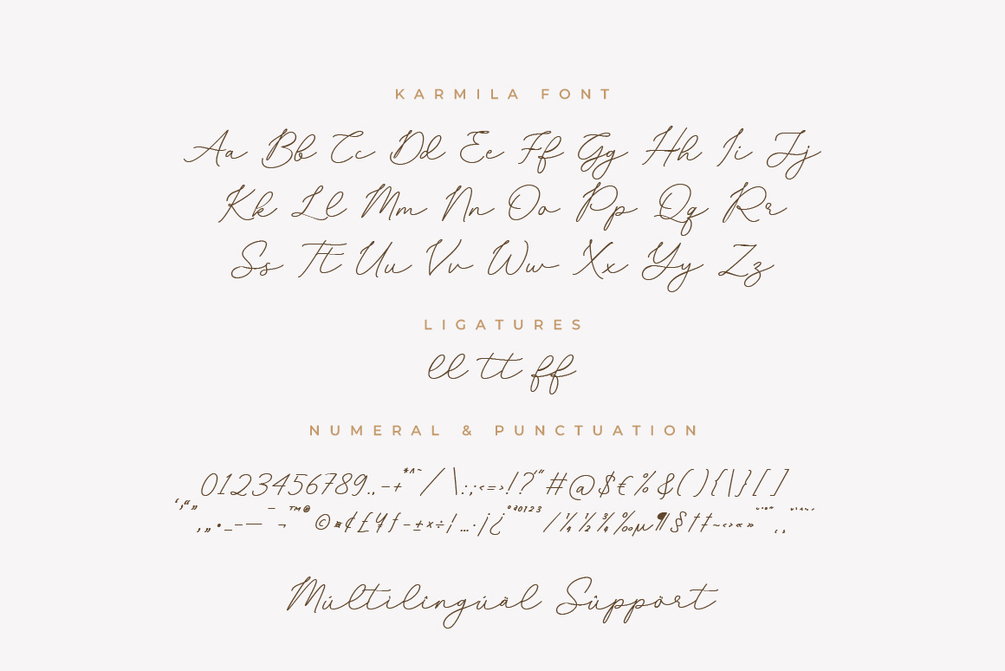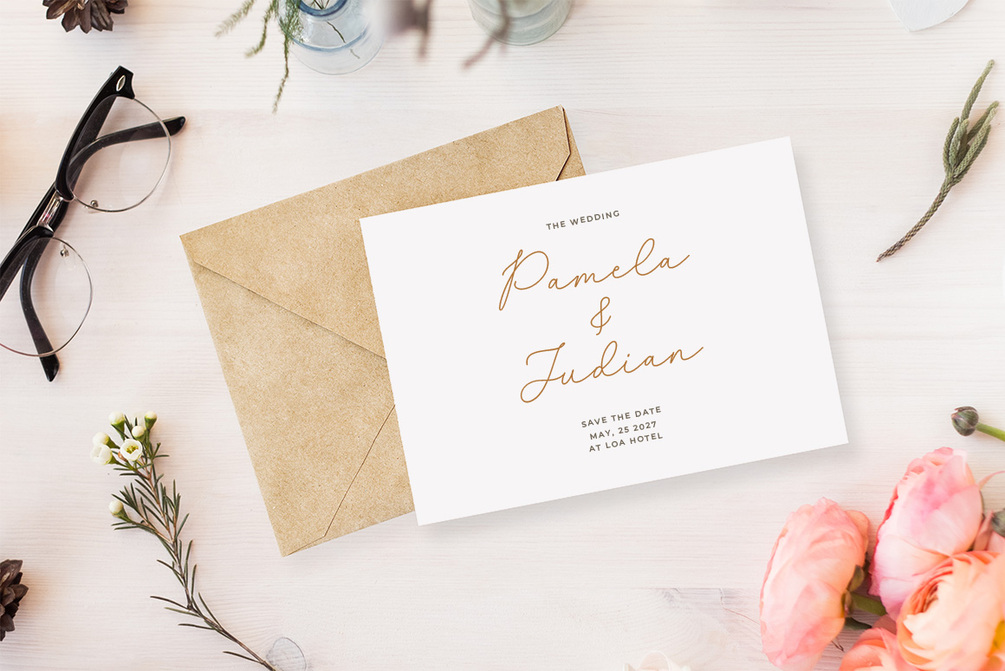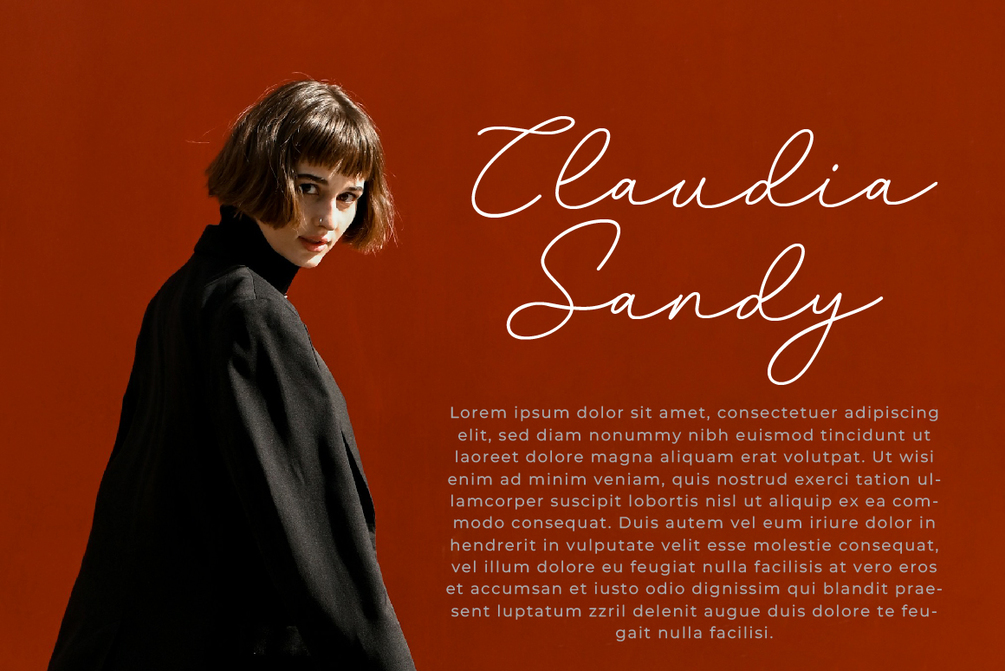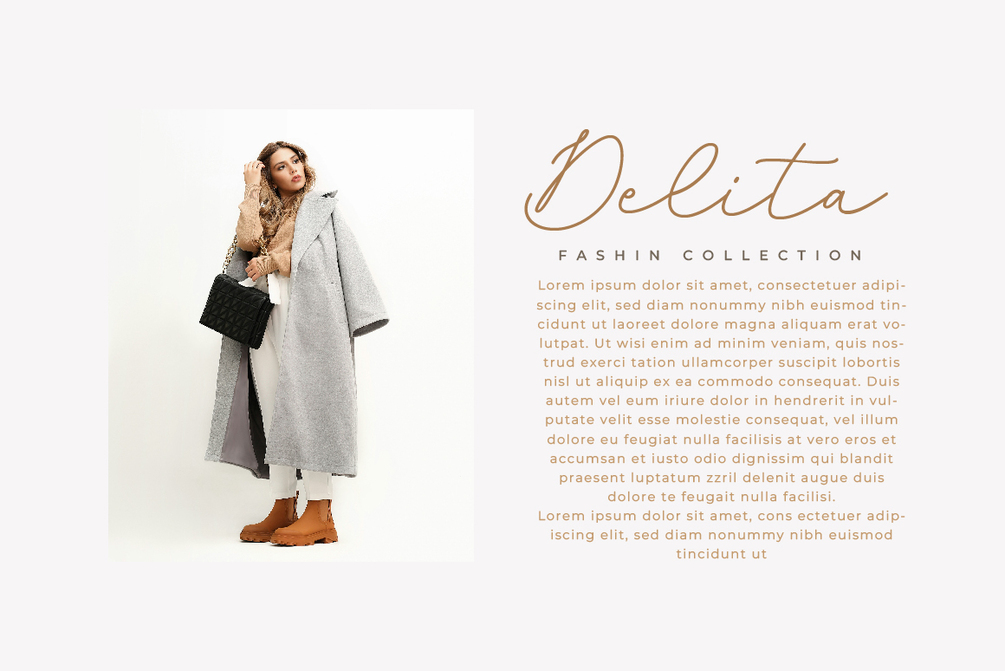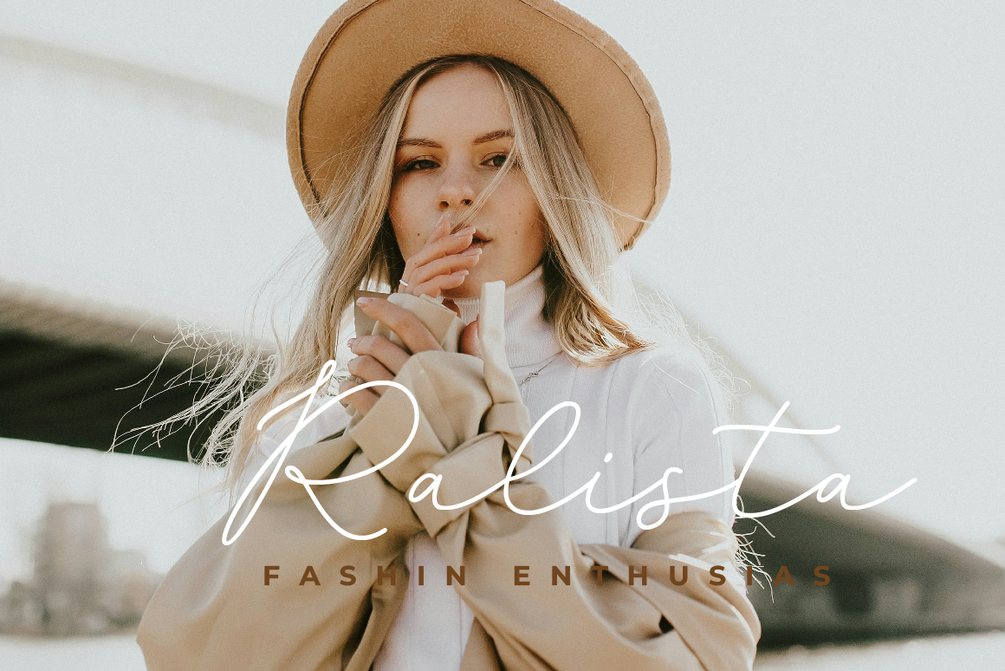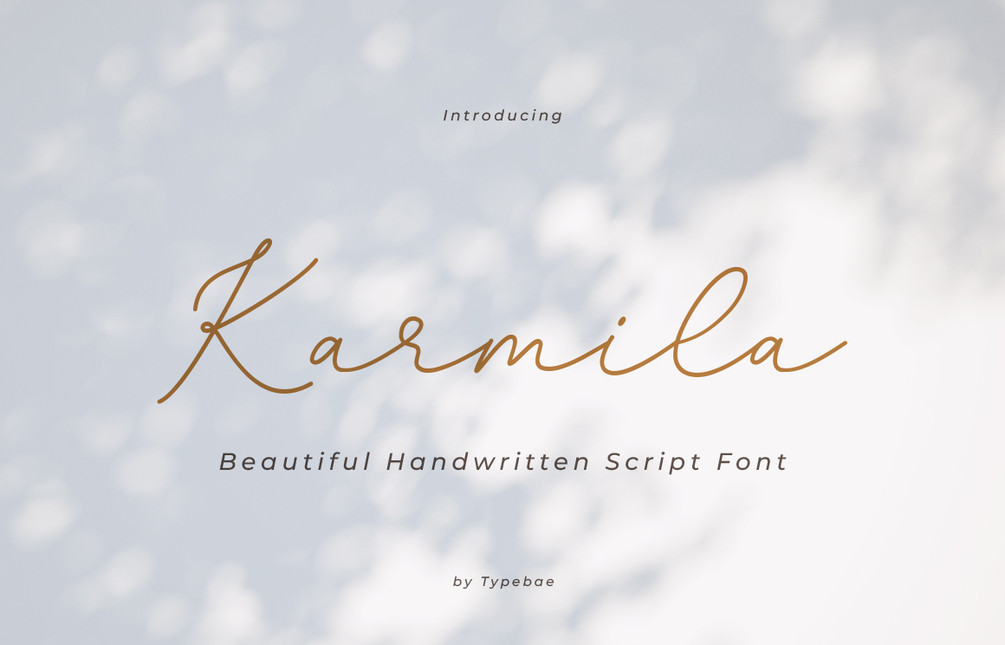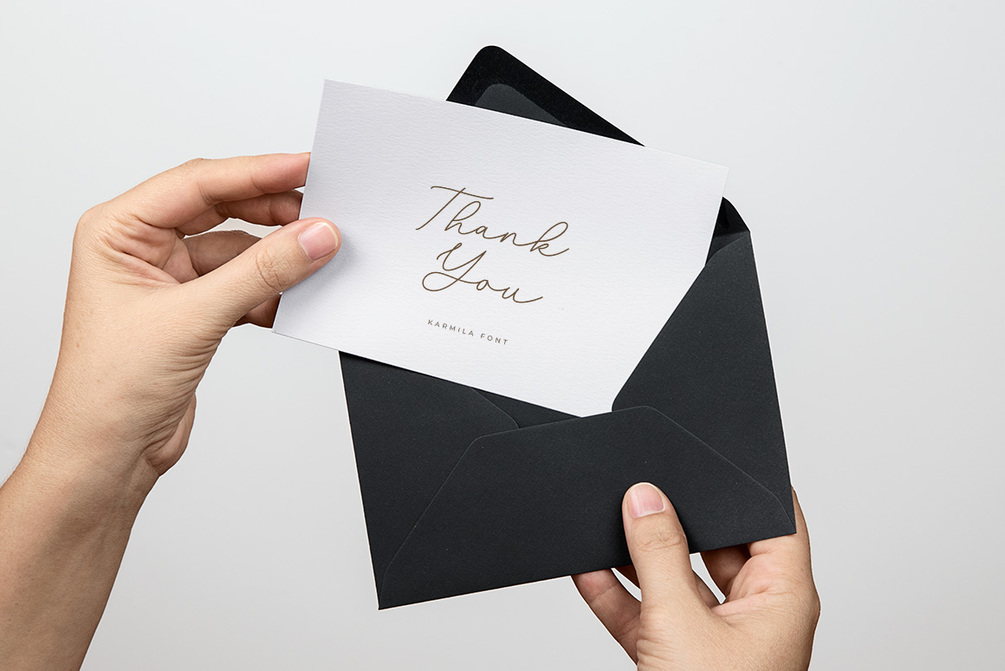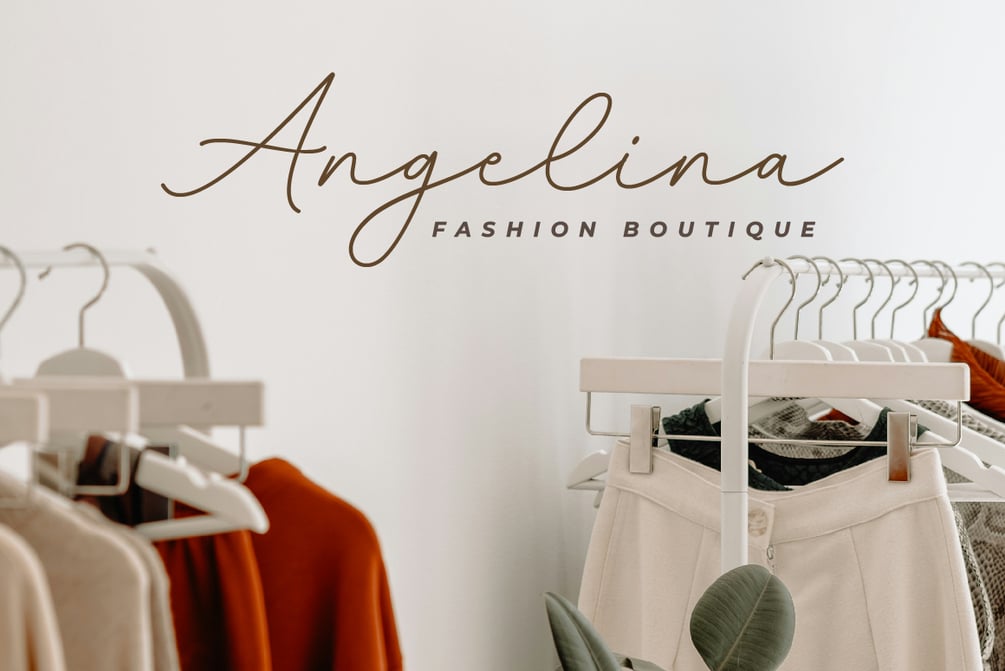
Karmila
Karmila is a beautifully charming typeface featuring graceful and flowing lines. Its sophisticated style adds a touch of elegance to any design project.
• Uppercase, Lowercase, Ligature, Numeral, Punctuation & Multilingual.